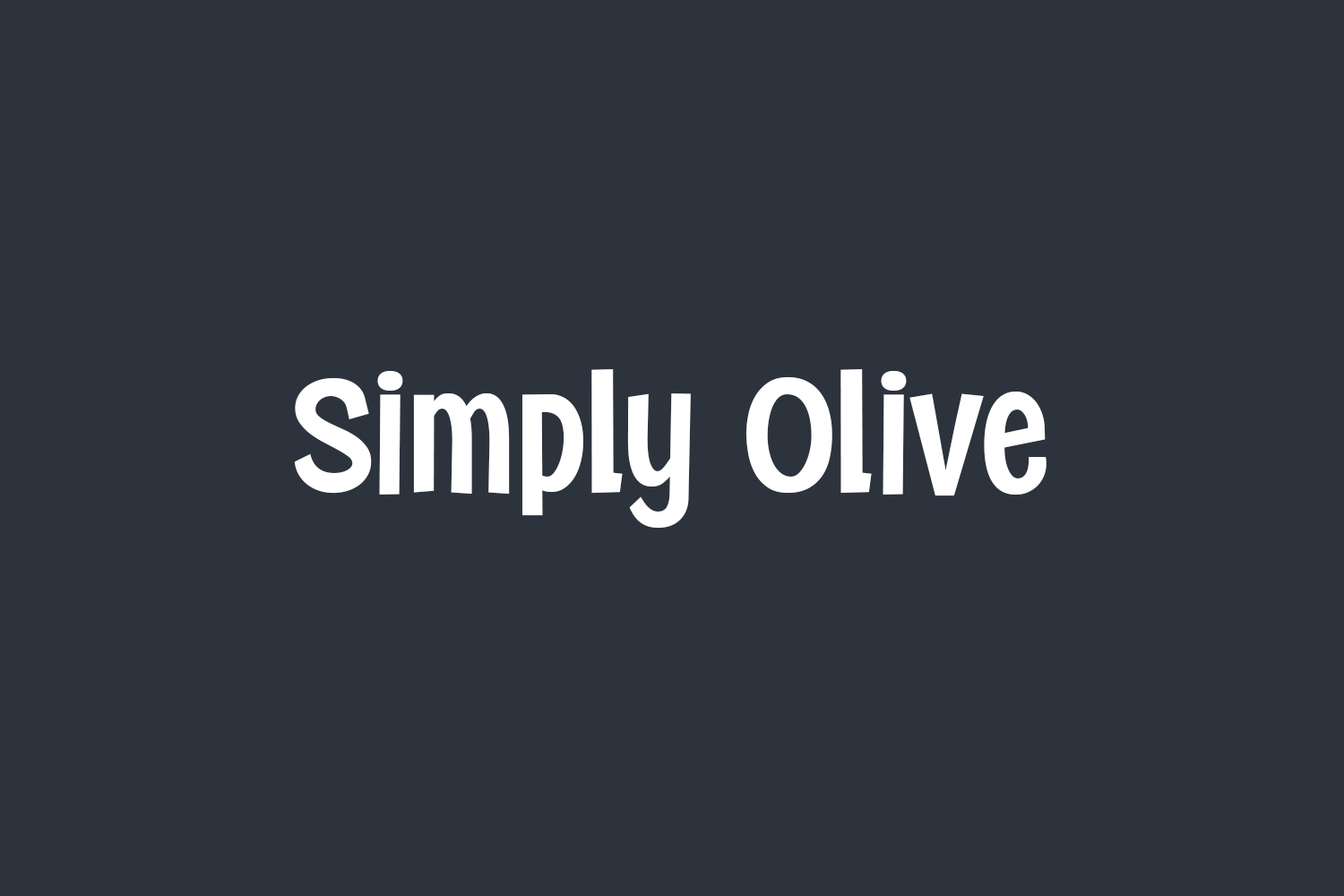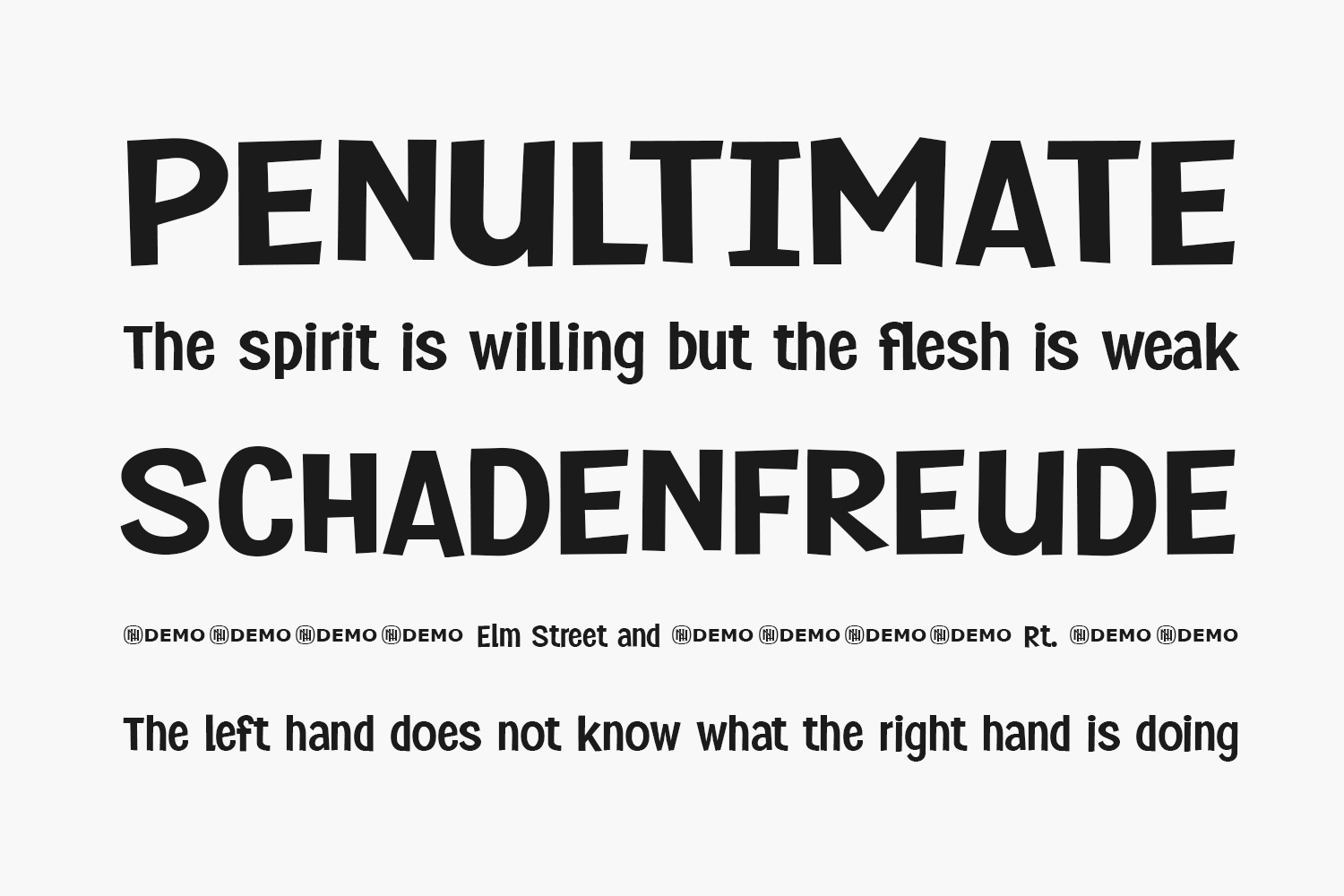
Simply Olive Free Font is a cool, bold, and fun looking display font. It can easily be matched to an incredibly large set of projects, so add it to your creative ideas and notice how it makes them stand out. Simply Olive Free Font was designed by Niskala Huruf is a demo and free for personal use only. Please purchase the full version for commercial use.